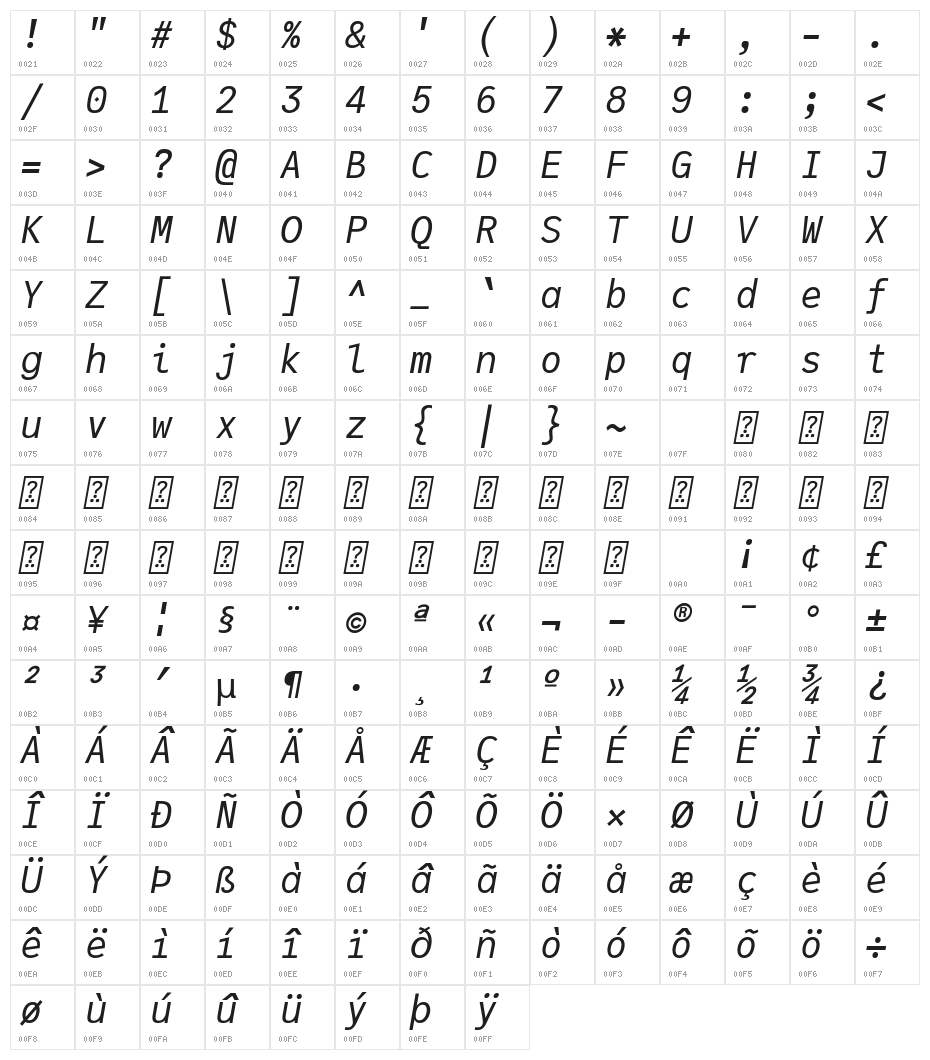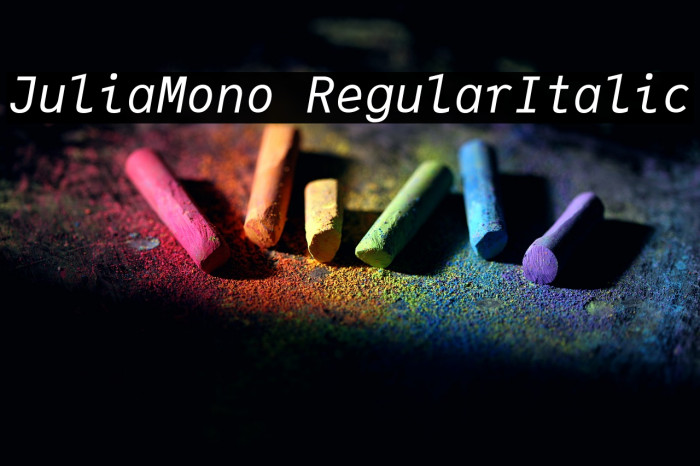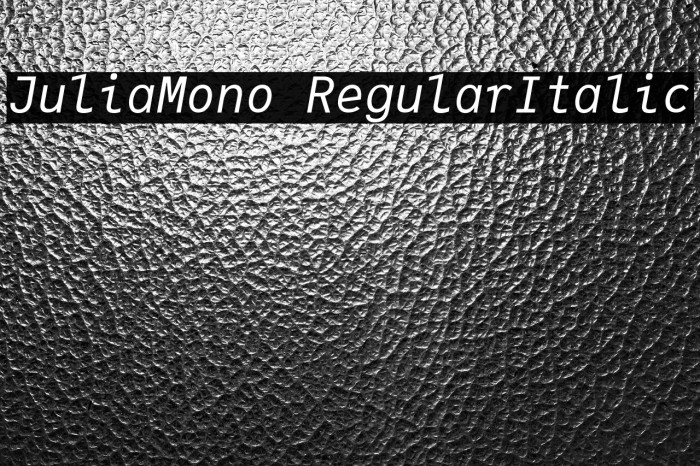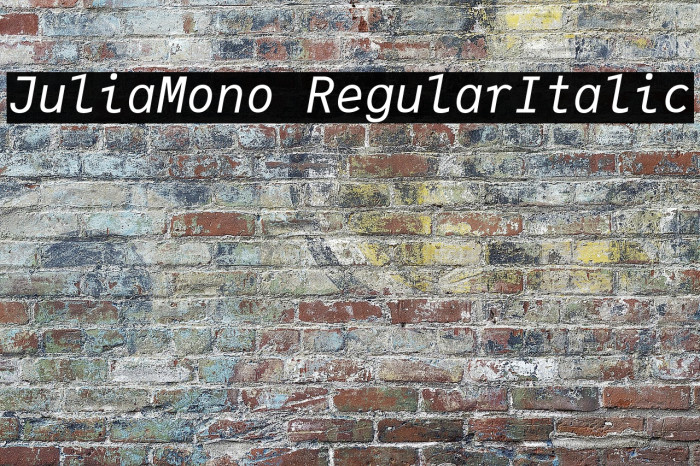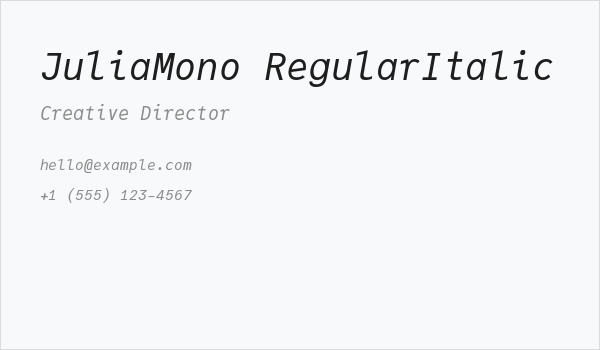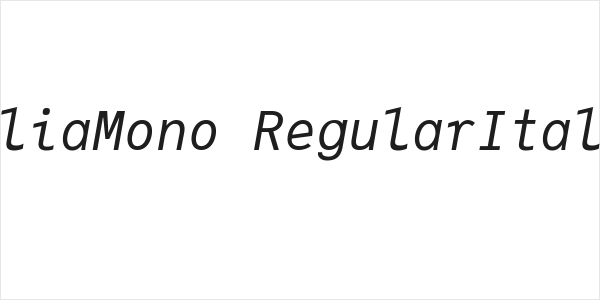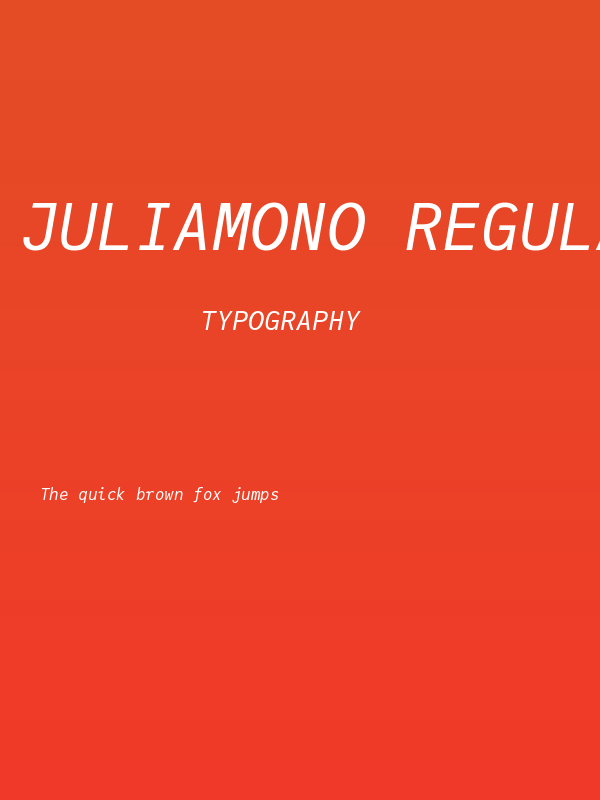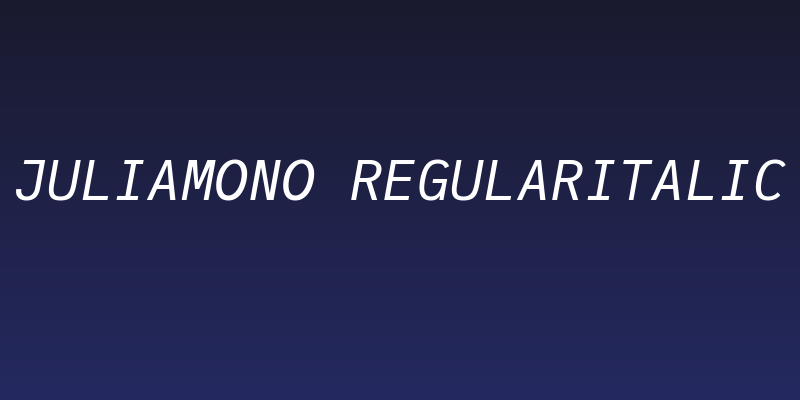
JuliaMono RegularItalic Font
JuliaMono RegularItalic Description
This typeface presents a clean and modern monospaced design, characterized by its consistent letter width and slight slant, giving it an italic appearance. The characters are well-defined with a uniform stroke width, contributing to its readability and functional aesthetic. The font maintains a balance between technical precision and a subtle elegance, making it suitable for both coding environments and design projects that require a contemporary touch. The numerals and special characters are crafted with clarity, ensuring they stand out distinctly. Overall, this font combines practicality with a sleek, modern style.
| Use Case | Coding, Technical documentation, Digital interfaces |
| Proposed Projects | Ideal for coding, technical documentation, modern design projects, and digital interfaces. |